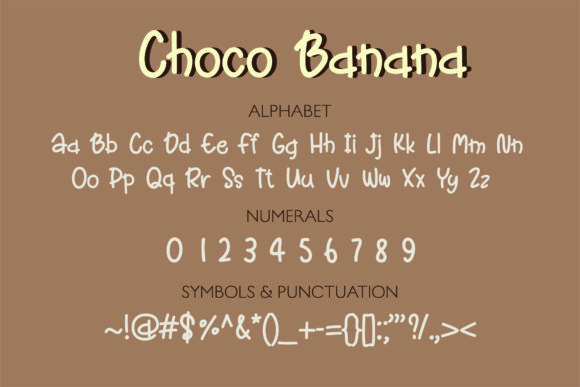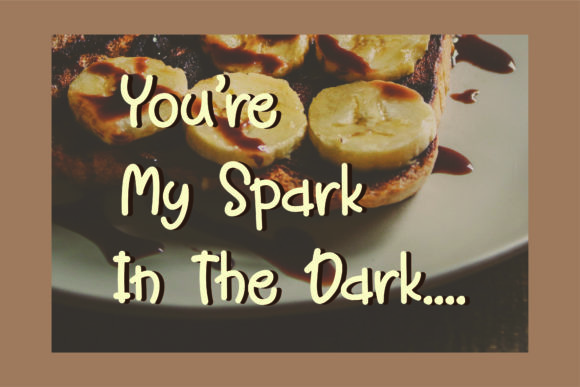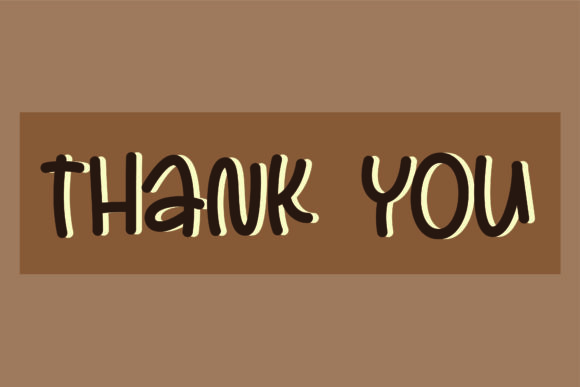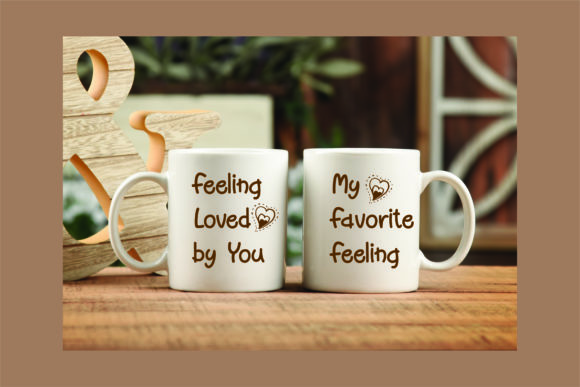
Choco Banana Font
About Choco Banana Font
Choco Banana is a quirky and friendly handwritten font. Its natural and unique style makes it incredibly fitting to a large pool of designs. The only limit is your imagination!